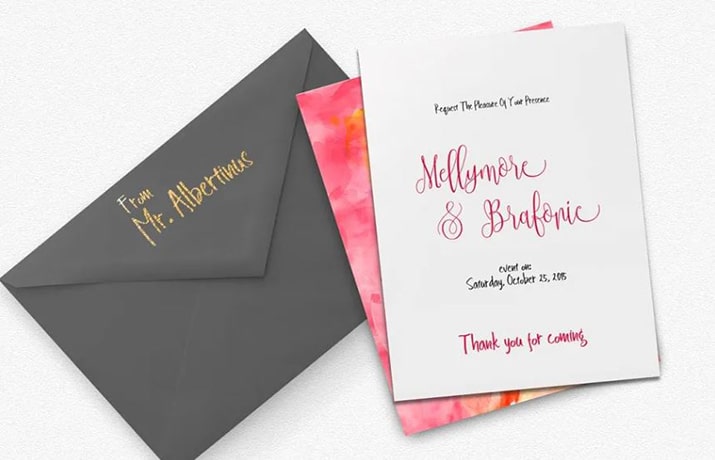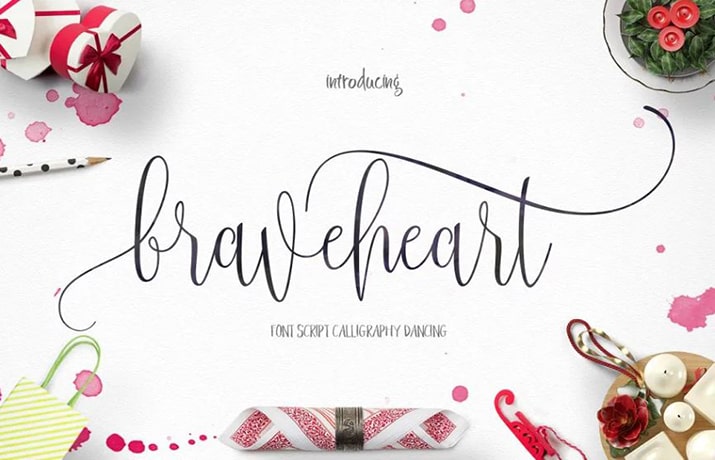
Braveheart Font is a unique blend of classic modern calligraphy typeface with contemporary, sophisticated accents.
Artisans has taken charge of designing and releasing it for the first time on 22nd December 2017. And after its release, it increased the demand for handwritten fonts in the markets.
Hence, it is now considered one of the best typefaces in the type design industry with wide language support, stylish layouts, and highly legible fonts.
Every character in this amazing font shows a superior appearance and sharp features. Thus different designers are constantly working with it.
| Style: | Script, Calligrahy, Typeface |
You can use it for various projects. For example, all kinds of designers use this beautiful font for branding logos, poster making, banners, hoarding printing, exclusive cards, fashion magazines, tattoos, quotes, book covers, fabric printing, and many more. can do
This premium quality font is available in three different styles including Braveblood, Bravelove, and Braveheart. All these styles feature Truetype.